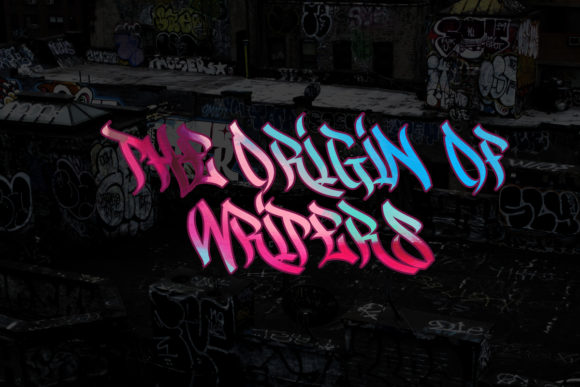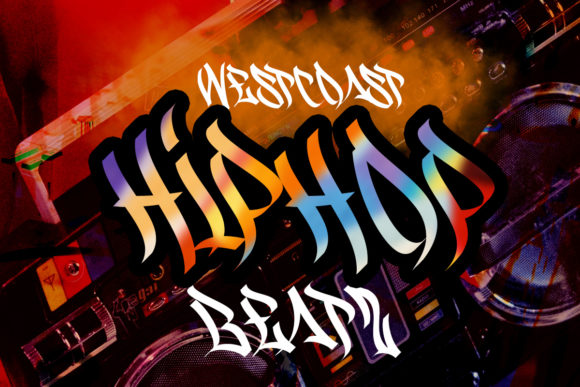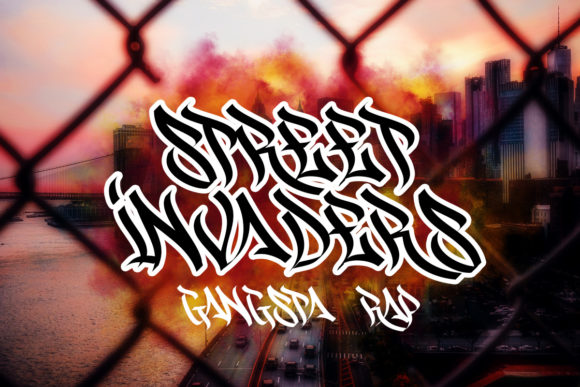
Introduction to Skatecrew Font
Skatecrew is a wildstyle graffiti font.
This amazing decorative font features a wildly funky characters using broad flat caps or broad marker that will add a great personal touch to any project that requires a street, urban and graffiti look Try this fonts to make your next street style art project.